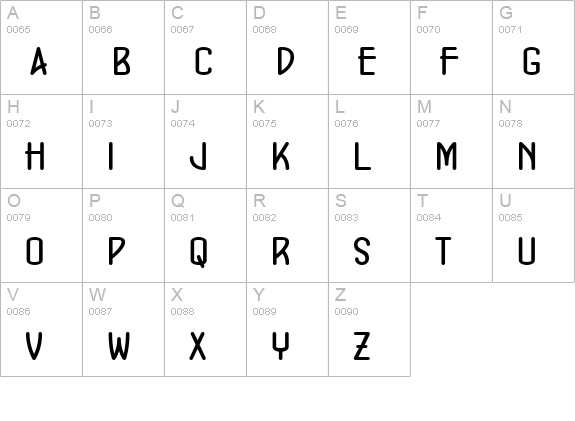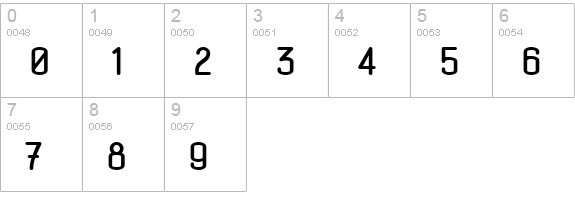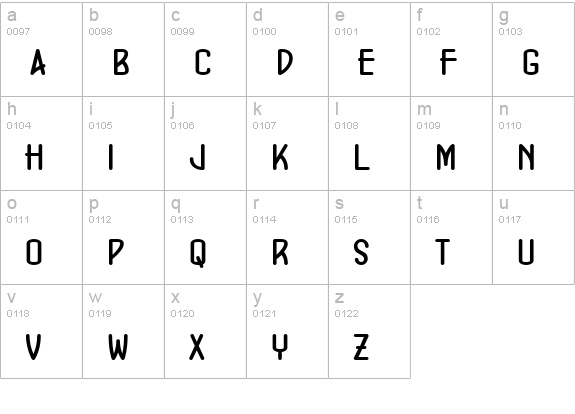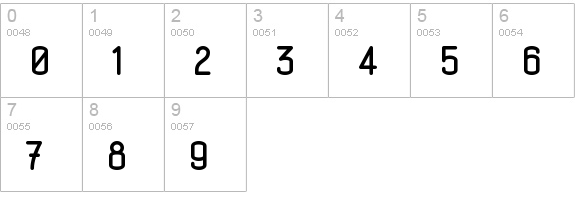
ConcursoModerne BTN Bold Font Details
ConcursoModerne BTN Bold is a strong, high-contrast variant in the ConcursoModerne typeface family \xE2\x80\x94 well suited to headlines, attention-grabbing titles, and strong calls-to-action.
ConcursoModerne BTN Bold font is a striking and modern typeface that exudes sophistication and elegance. With its bold and clean lines, this font is perfect for creating impactful designs that command attention. Whether used for headlines, posters, or branding materials, ConcursoModerne BTN Bold adds a touch of class and professionalism to any project. The best part? ConcursoModerne BTN Bold font is available for free download at FontsMarket.com. This means you can easily access this high-quality font and use it in your designs without any cost. Don't miss out on the opportunity to elevate your projects with the timeless beauty of ConcursoModerne BTN Bold font. Download it now and see the difference it can make in your designs!